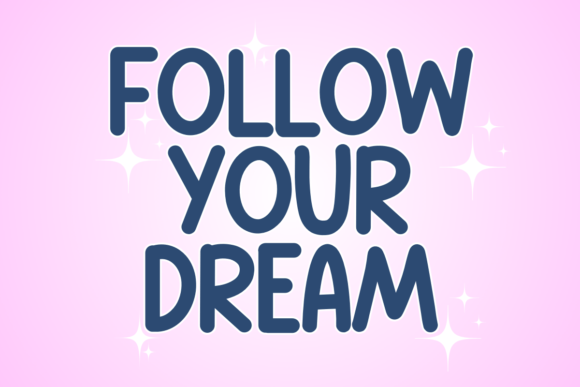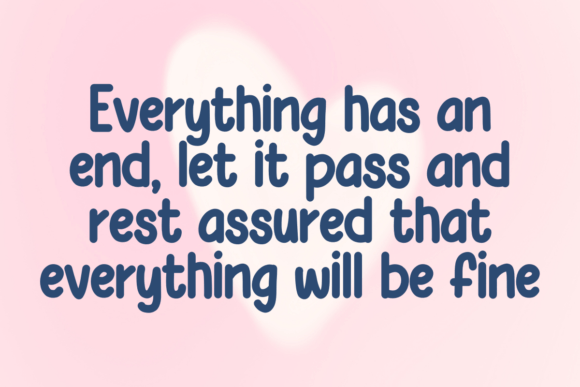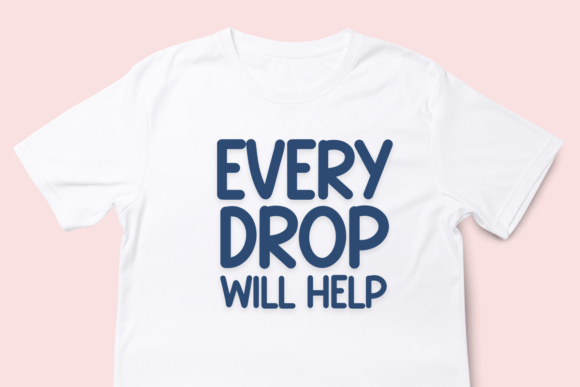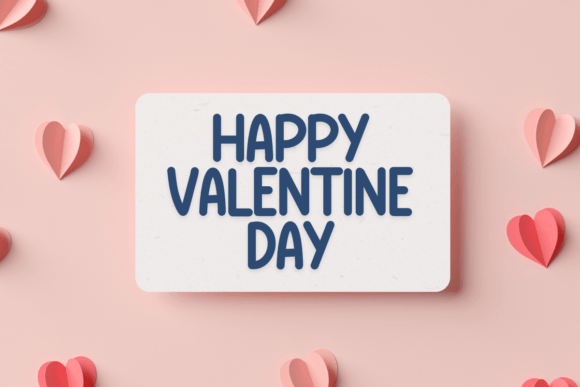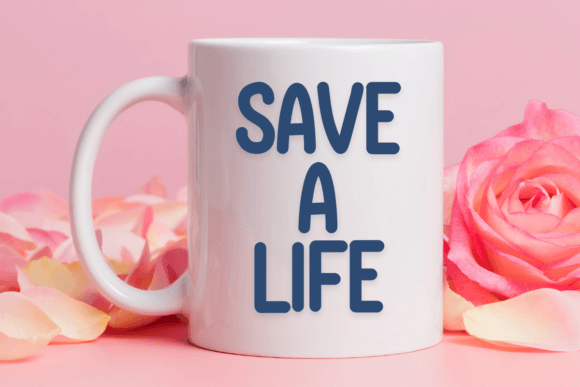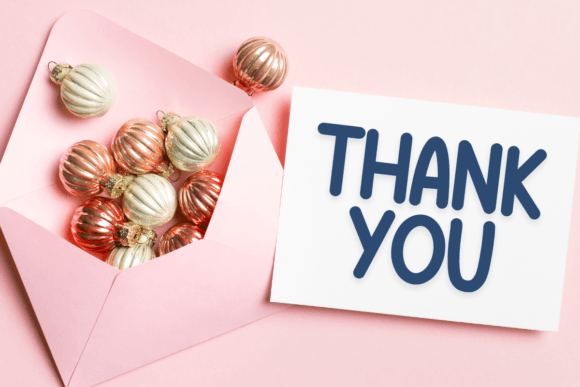
Introduction to Nicety Font Font
Fonts play a crucial role in design, and the Nicety Font font is a typeface that brings both character and versatility to any project. Whether you’re working on a branding project, a website, or a print design, the Nicety Font font offers a unique style that can elevate your work.
Nicety is a Font with a modern style based on bold and minimalist shapes touched in a modern and elegant style.
This font is perfect for various creative needs such as printing, books, titles, headlines, photography, decoration, branding, logos, and more .
The Nicety Font font is more than just a typeface – it’s a design tool that helps you communicate your message with style and clarity. Its unique character set and versatile design make it suitable for a wide range of applications, from elegant invitations to bold headlines.
With its carefully crafted letterforms and balanced proportions, the Nicety Font font ensures readability and visual appeal across all mediums.
The Nicety Font font stands out with its unique design, exceptional readability, and versatility across various design applications.